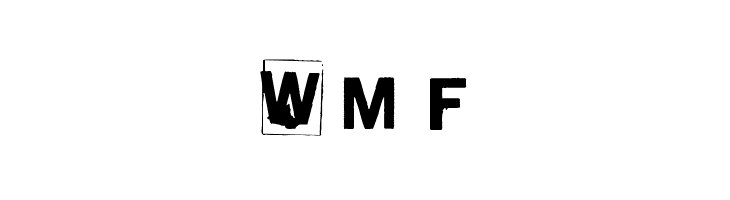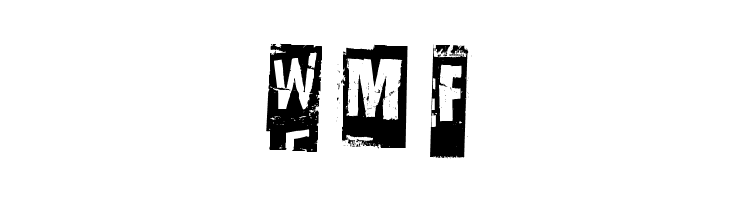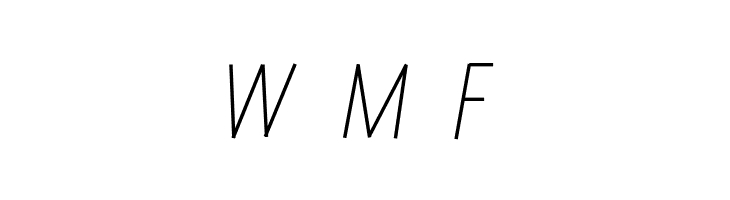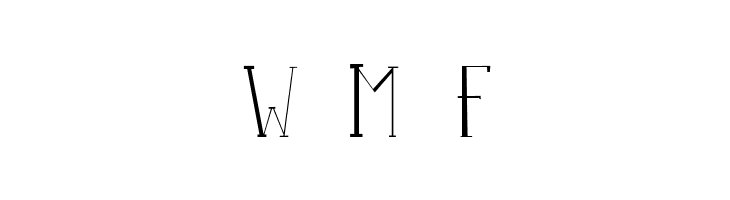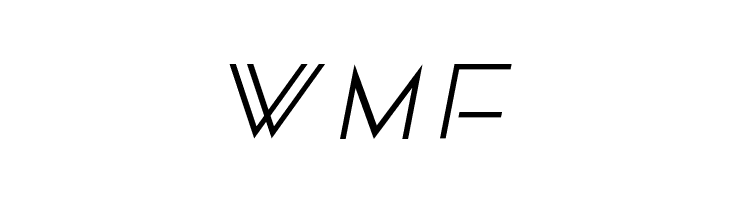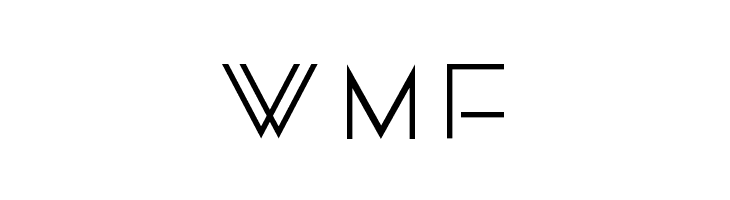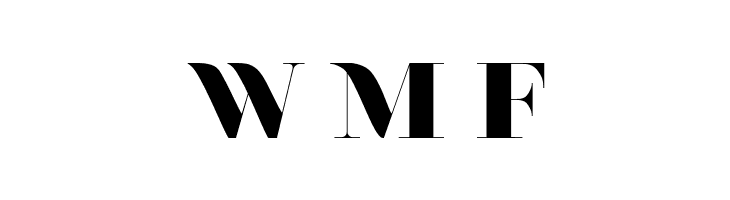
A bold, grunge-inspired font with a ransom-note aesthetic.
A bold, collage-style font with a cut-out, textured appearance.
A tall, narrow, and modern font with a sleek and sophisticated appearance.
A sleek, modern italic font with elongated, condensed characters.
A bold, distressed font with a gritty, urban aesthetic.
A bold, distressed font with a chaotic and grunge aesthetic.
A gritty, distressed font with a ransom note style and grunge texture.
A bold, distressed font with a cut-out, grunge style.
A modern, ultra-condensed font with tall, narrow letterforms and minimal stroke contrast.
A modern, high-contrast sans-serif font with elegant, slender characters.
A bold, distressed font with a grunge, ransom note style.
A tall, slender, and modern font with consistent stroke width.
A sleek, ultra-thin font with elongated, narrow characters for a modern look.
A sleek, modern italic font with geometric lines and a futuristic style.
A sleek, geometric font with a modern, minimalist design.
A modern, sleek font with elongated strokes and subtle curves.
A thin, elegant italic font with a modern and sophisticated style.
A bold, distressed font with a grunge, ransom note style.
A tall, narrow, and modern font with a sleek, minimalist design.